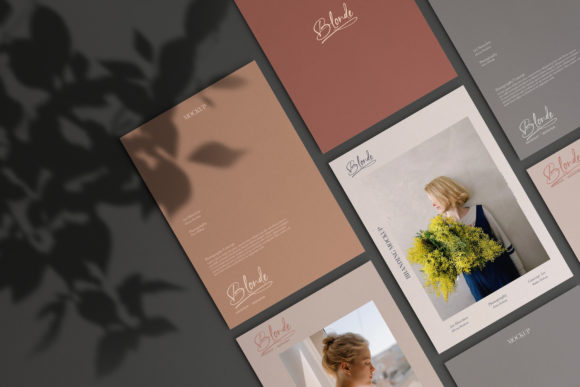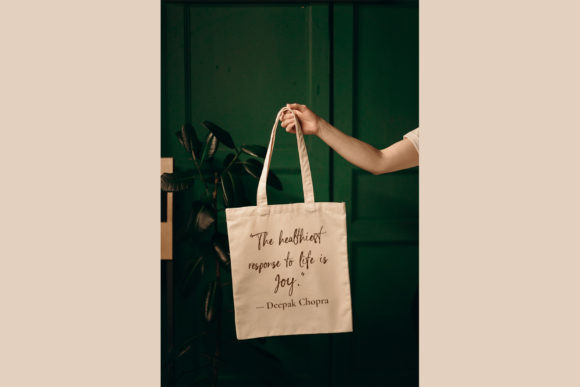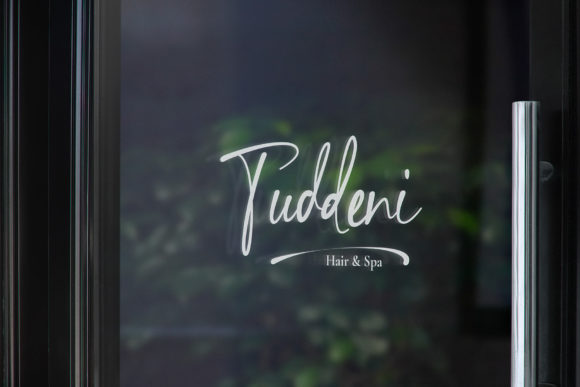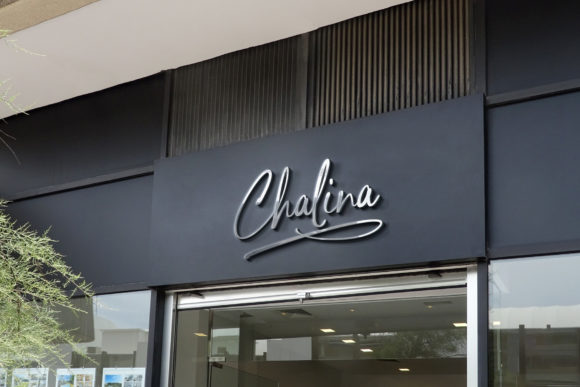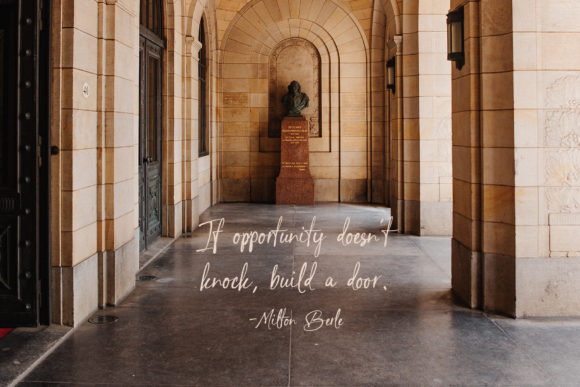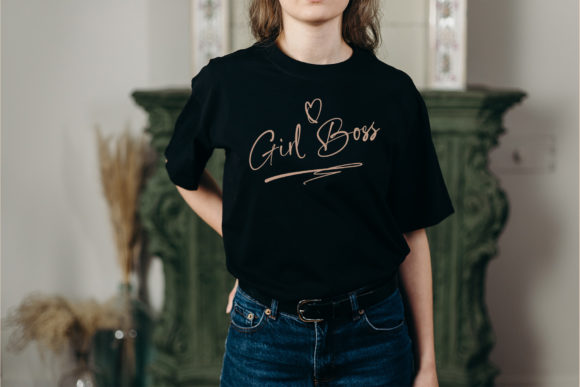
Have you ever found yourself scribbling in the margins of a notebook, lost in a sea of creative ideas? It’s those moments of pure inspiration that remind us why we love design. And for those who crave a little extra flair in their work, the Chalisha Script Font is the perfect addition.
This elegant handwritten font boasts delicate swashes and a sweet, dainty aesthetic that’s sure to elevate any project. From letterheads and titles to stationery, the Chalisha Script Font is the perfect tool for designers looking to add a touch of whimsy to their work.
With its versatility and charm, the Chalisha Script Font is an invaluable asset for any designer looking to bring their creative vision to life.
Key Features of Chalisha Script Font
- Unique Characteristics: Chalisha Script Font features a beautiful, handwritten script style with elegant connections and subtle flourishes, perfect for creating eye-catching titles and headings.
Chalisha Script Font Review
Overall, I think the Chalisha Script Font is a beautiful addition to any designer’s toolkit. ✨ It has a lovely, flowing feel that’s perfect for adding a touch of elegance to your designs.
- ✨ Elegant feel: Chalisha Script is great for creating a sophisticated, high-end look in your designs.
- ✨ Versatile: It works well for both personal and commercial projects, from logos to invitations.
- ✨ Easy to read: Despite its script nature, Chalisha is still easy to read, making it a great choice for body text.
- ⚠️ Limited language support: Chalisha Script is primarily designed for English and may not be suitable for languages with complex scripts.
- ⚠️ Not ideal for small text: While Chalisha is easy to read, it’s not the best choice for small text, as the letters can become difficult to distinguish.
Overall, I think Chalisha Script is a solid choice for designers looking to add some elegance to their projects. Just be aware of its limitations and use it thoughtfully to get the best results.
Getting the Most Out of Chalisha Script Font
For the best results, use Chalisha Script Font for titles, headings, and other decorative text. Avoid using it for large blocks of text, as it can be difficult to read.
Chalisha Script Font is perfect for:
– Quote and phrase graphics